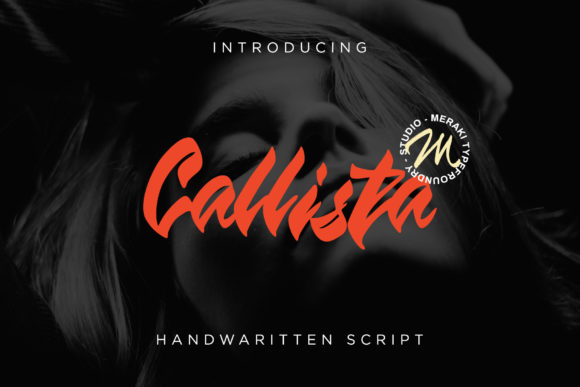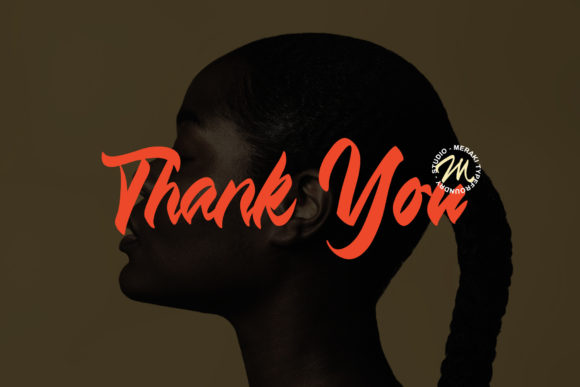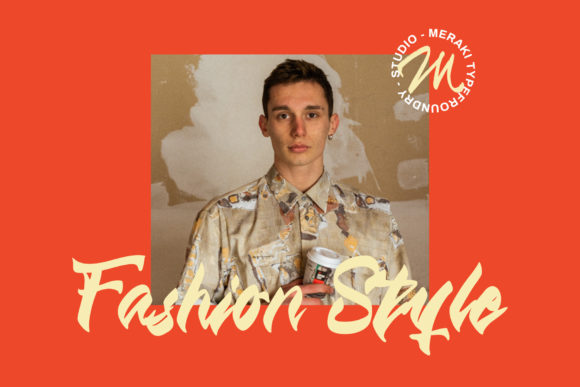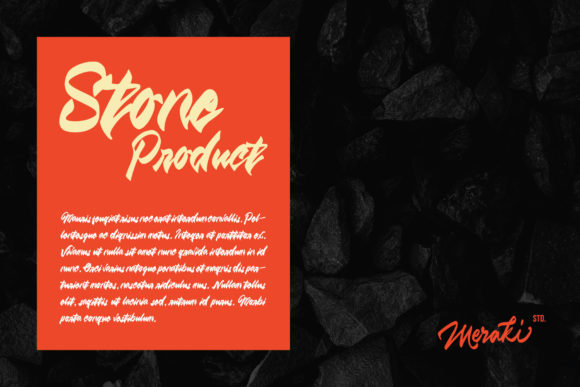
About Callista Font
Callista is an unique handwritten font. Whether you’re using it for crafting, digital designing, presentations, or greeting card making, it’s perfect!